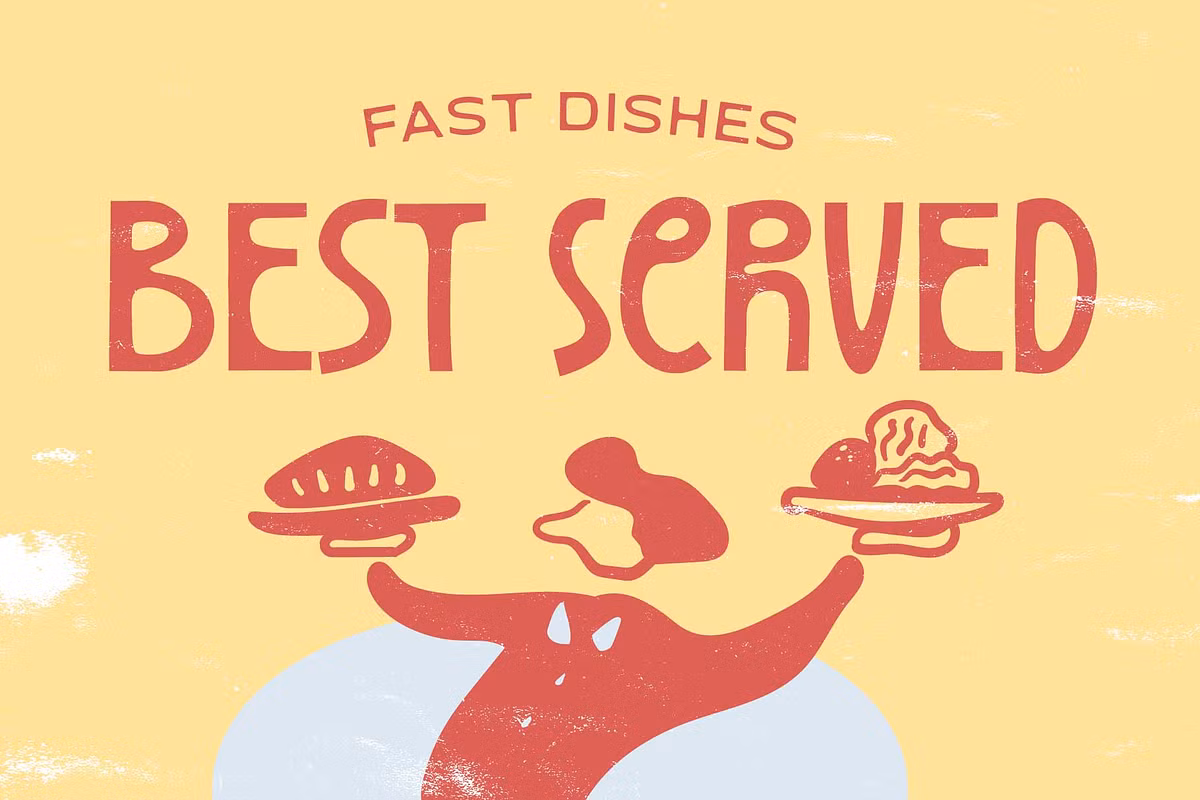
Costage: Eccentric Display Font Duo for Creative Branding and Design
Costage is a pretty cool font duo that combines a fancy display style with a simple sans serif font. What makes it special is how it balances being fun and quirky with being structured and easy to read. The letters are a bit narrower than usual, which gives it a unique look that’s both playful and sophisticated. This makes Costage a great choice for designers who want to add some personality and excitement to their work. It’s perfect for projects where you want to convey a sense of joy and creativity. With its one-of-a-kind style, Costage is sure to make your designs stand out and grab people’s attention.
Whether you’re working on a poster, a website, or a brochure, this font duo is a great way to add some visual interest and make your message more engaging.
What makes Costage stand out is its unique design style. The font used for display is really special – it has details that you don’t usually see in other fonts. The curves are playful and the shapes of the letters are one-of-a-kind, which grabs your attention and makes you want to learn more. At the same time, the sans font that goes along with it is straightforward and easy to read, so everything stays balanced.
When you put these two fonts together, you get a system that’s really flexible and lets designers try out all sorts of different ideas. This mix of fun and function is what makes Costage so appealing.
Character Sets and Features
Costage has a huge collection of characters that can be used in many different design projects. You get uppercase and lowercase letters, numbers, punctuation marks, and lots of special characters. This means you have a lot of freedom to create unique and interesting designs, whether you’re making logos, packaging for products, or materials to promote something.
With so many characters to choose from, you can really let your creativity shine and come up with something that stands out. The way Costage is designed, with its unique letters and semi-condensed style, makes it look really good and easy to read.
Use Cases
Costage really stands out in a lot of different design situations, which makes it a great thing to have in your collection of typography tools. Let’s take a look at some of the most notable ways to use it:
- Costage has a really unique style that makes it great for creating brand identities that people will remember.
- When you use Costage on packaging, it really catches your eye.
- Eye-Catching Headlines: In print and digital media, using Costage for headlines ensures they grab attention.
- Print Applications: From brochures to business cards, Costage enhances printed materials with its distinctive flair.
One of the standout features of Costage is its versatility in pairing with other typefaces. Here are some suggestions on how to effectively pair Costage with its sans companion:
- Costage Display with Costage Sans: Use the display font for headlines and the sans companion for body text.
- Costage with a Clean Serif: Adds a touch of sophistication and contrast.
- Costage with a Modern Sans-Serif: Enhances readability while maintaining a contemporary aesthetic.
Costage is a pretty cool font duo that’s a bit quirky and fun, but also has a touch of sophistication. It’s got a semi-condensed style, which means the letters are a bit narrower than usual, and it’s got a huge range of characters to play with. This makes it perfect for designers who want to tell a story with their visuals.
Overall, Costage is a great tool for anyone who wants to add some personality and flair to their designs.